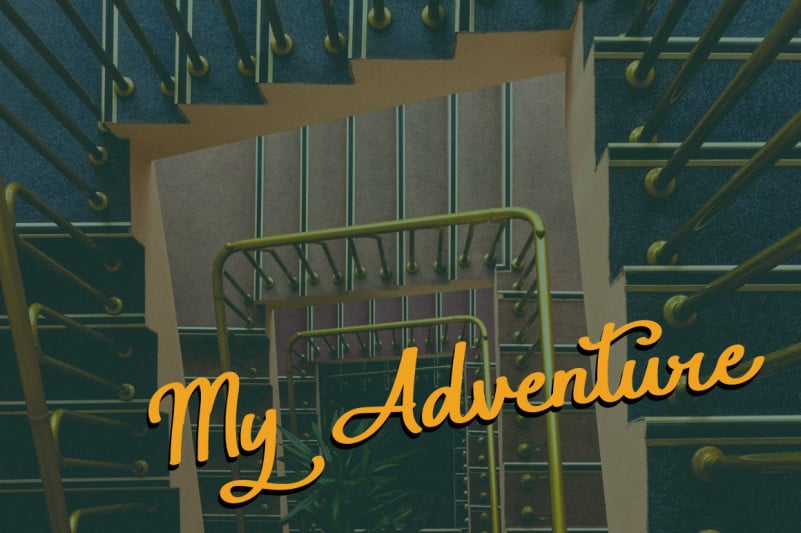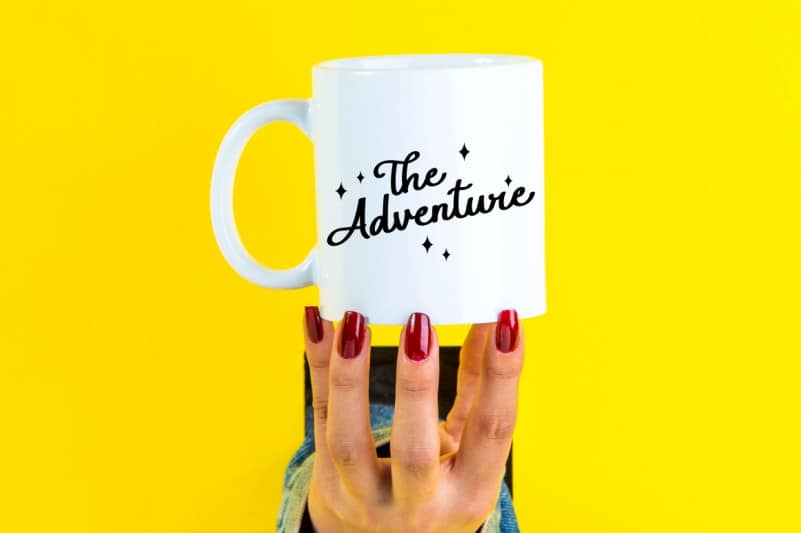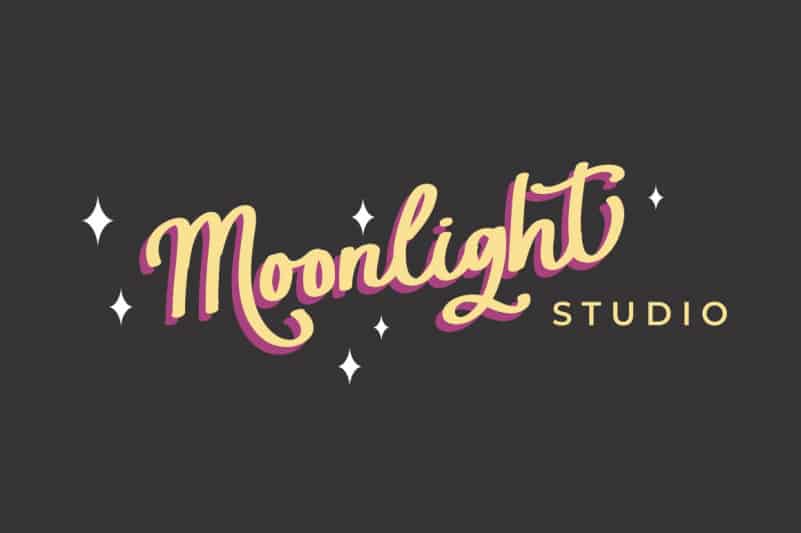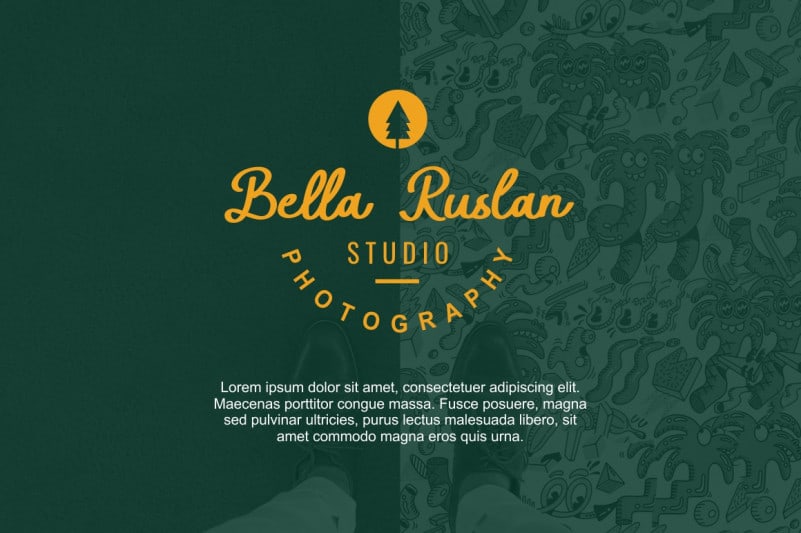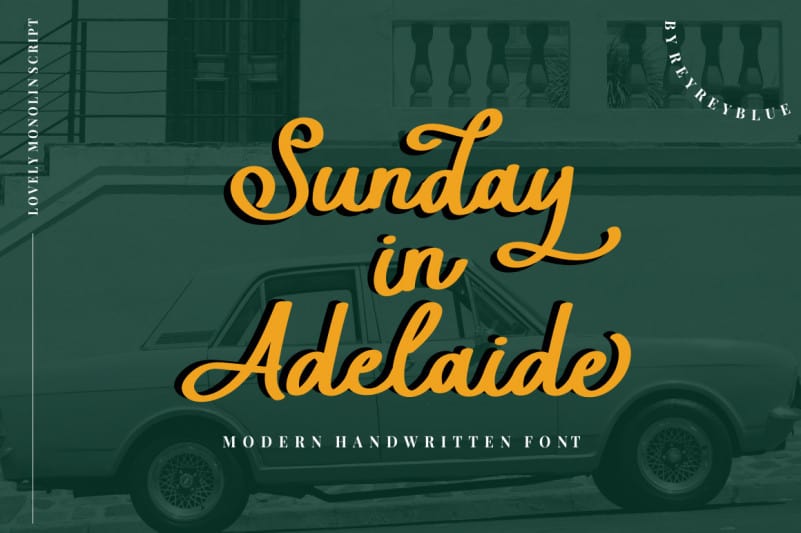
Sunday in Adelaide Script Font
Introducing Sunday in Adelaide Script Font. A beautiful and modern font that will look awesome on logos, branding materials, wedding and event stationery, social media overlays, cards and so on. Sunday in Adelaide includes full set of lovely uppercase and lowercase letters, multilingual symbols, numerals, punctuation, ligatures nd swashes.